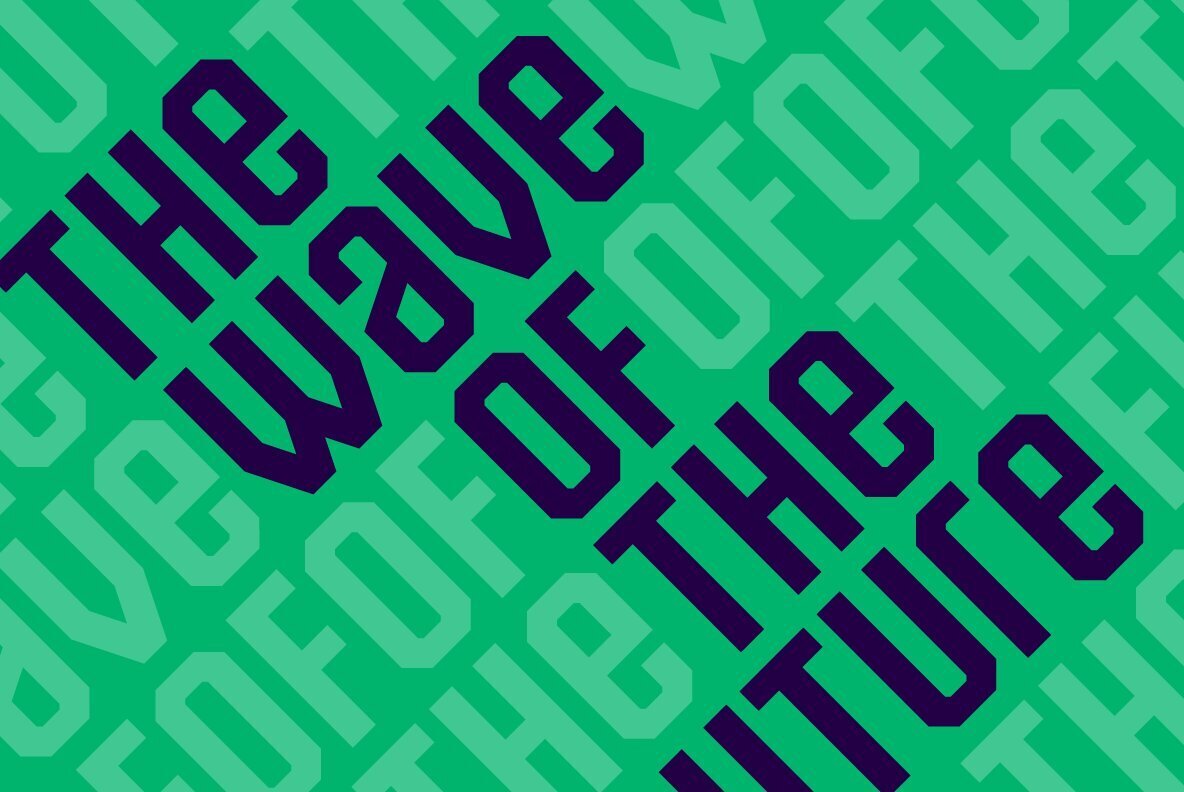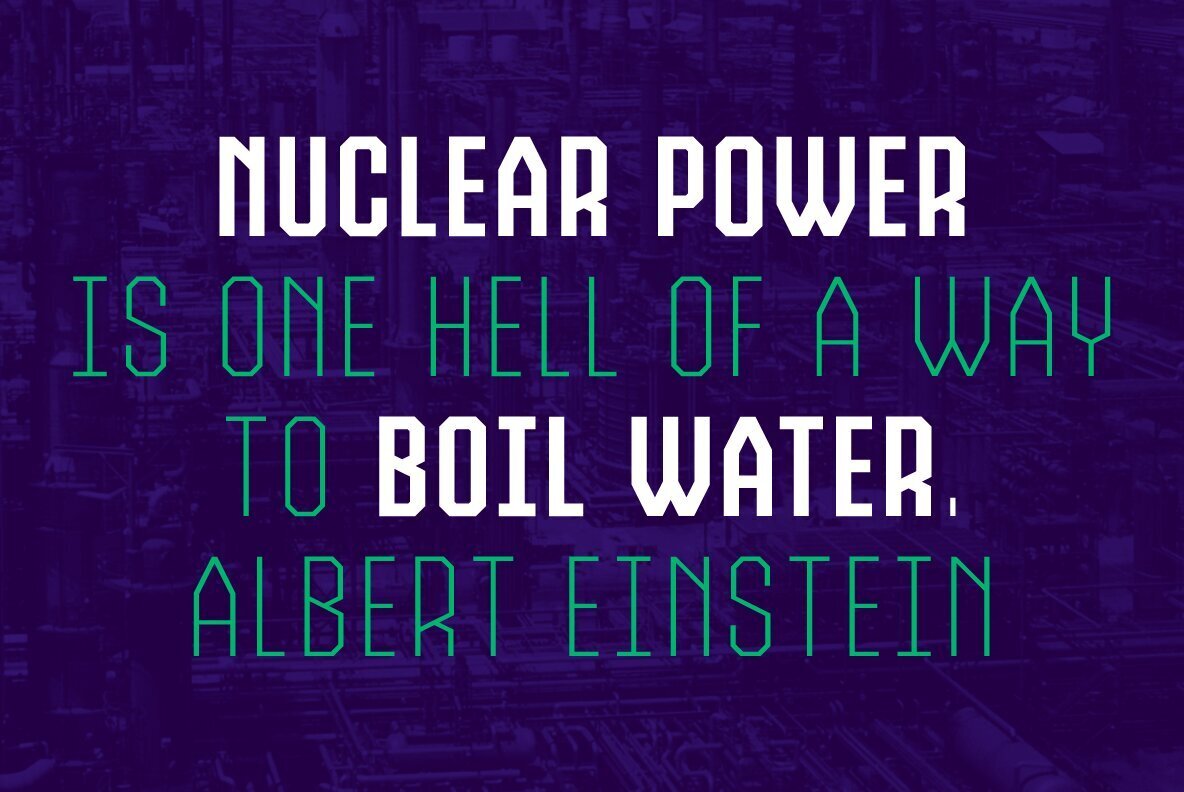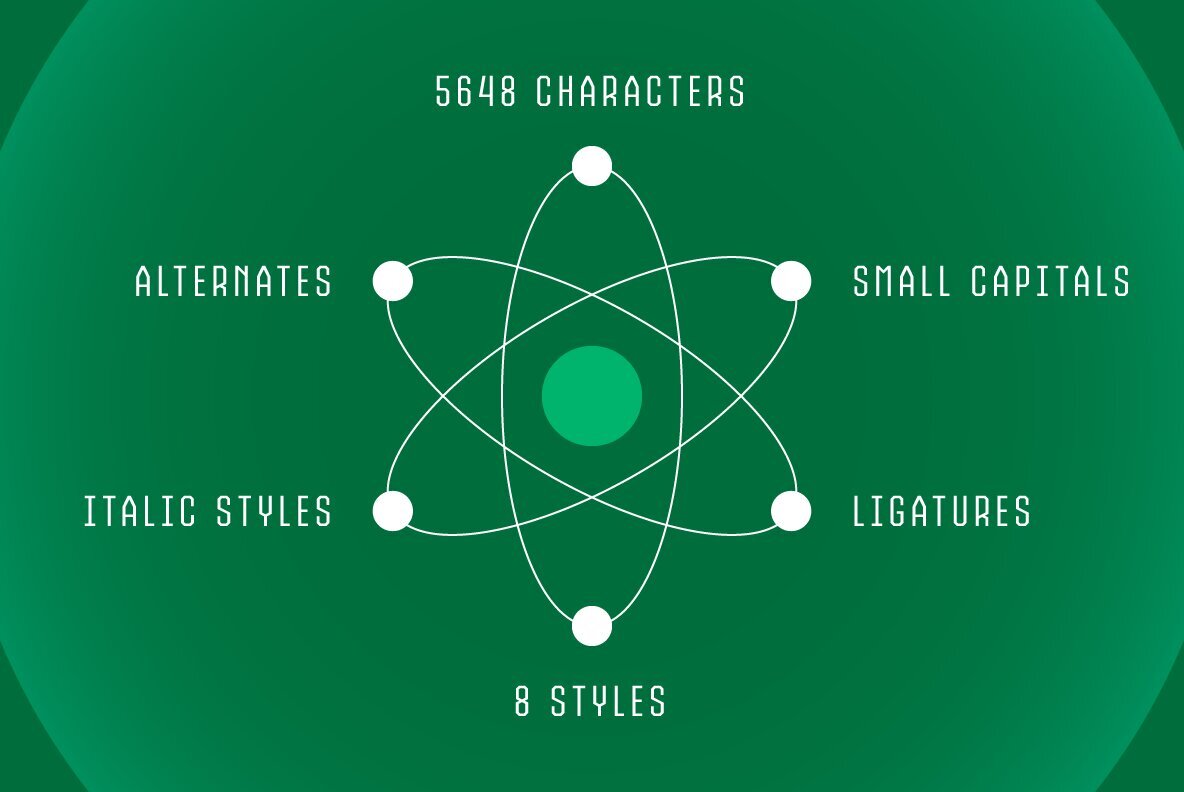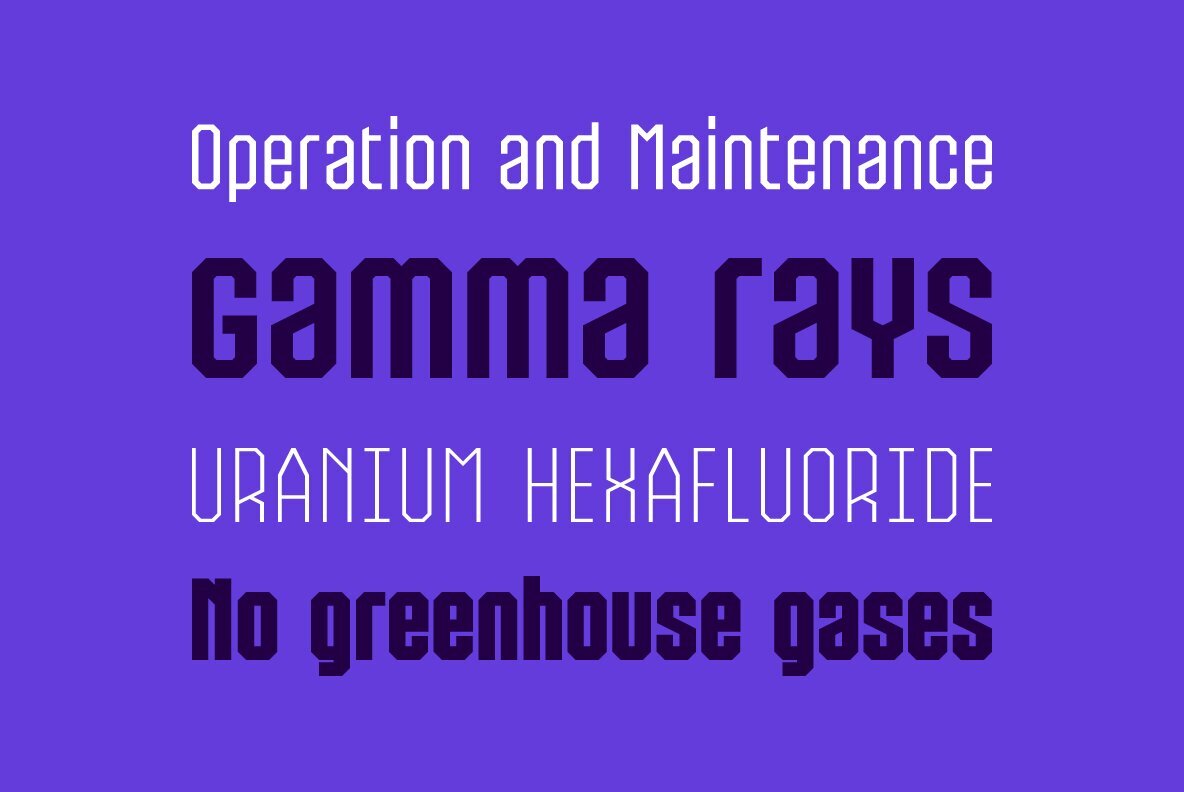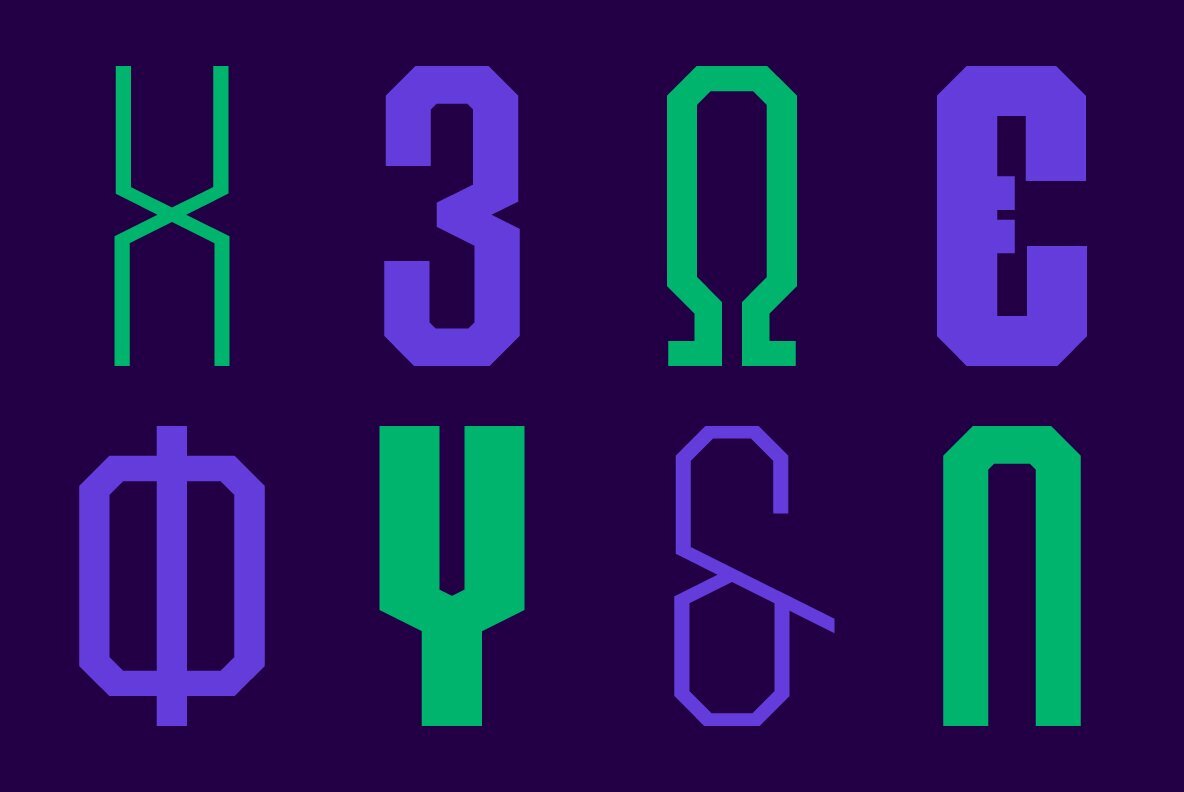
Fisionada Font
Fisionada is a cutting-edge font family masterfully crafted by Pablo Balcells for Graviton Font Foundry in 2023. This condensed sans serif typeface boasts sharp edges and a highly technical aesthetic. Fisionada's condensed nature makes it an efficient choice for space-saving, while its geometric features render it irresistibly appealing for display purposes like futuristic logos, video games, and sci-fi content. It's been thoughtfully designed to excel in headlines and short text blocks, where its distinctive style can truly shine. Fisionada comes in 8 remarkable styles, each featuring small caps and extensive glyph coverage to accommodate a variety of languages. Explore the captivating world of Fisionada and elevate your projects with its sleek, modern touch.